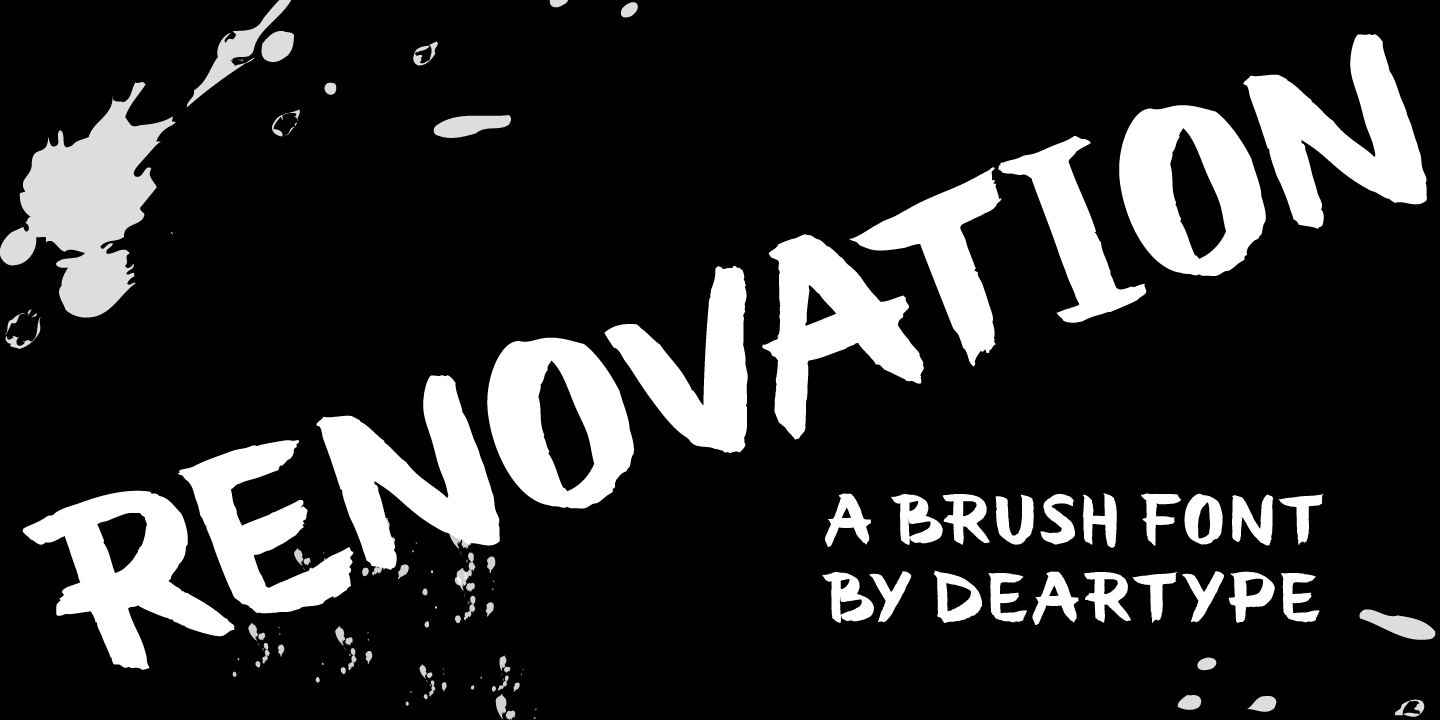
Renovation Font is excellent for home improvement branding, construction company logos, remodeling contractor signage, architectural firm materials, building restoration projects, interior design businesses, property development marketing, renovation service advertisements, and construction industry communications.
What makes Renovation Font so exciting is its transformative strength that perfectly captures the dynamic energy and skilled craftsmanship of home improvement and construction renovation projects. This robust typeface features solid letterforms with construction-inspired proportions and architectural character details that evoke the reliability of professional builders and the satisfaction of completed transformations. The font's distinctive character incorporates the precision of construction work while maintaining exceptional readability, making it ideal for renovation brands seeking to communicate expertise, reliability, and transformative results.
Renovation Font offers a comprehensive construction family including Regular, Bold, Light, and Condensed variations, each maintaining the signature renovation aesthetic while providing different levels of architectural impact for various building and improvement applications. Additional construction symbols and architectural ornaments enhance the font's authentic building industry appeal for professional projects.
Whether you're developing construction brand identities, creating renovation marketing materials, or designing building industry campaigns, Renovation Font Free Download delivers the strength and professional authenticity that construction and renovation projects require. Its versatile nature makes it suitable for both large construction site signage and detailed architectural documentation while maintaining consistent building industry appeal across all construction platforms. This exceptional typeface combines construction expertise with modern functionality, ensuring your message communicates quality and reliability that resonates with homeowners and professionals who value skilled craftsmanship and appreciate design that represents the highest standards of construction excellence and renovation transformation.